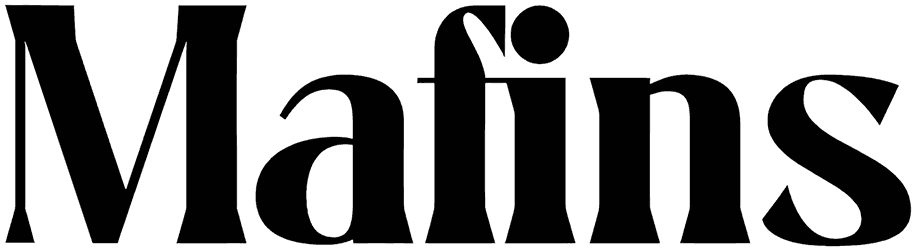
Mafins Font
Has it ever occurred to you that you can imply as much elegance as you want about a certain brand if you just choose the right font? For instance, with Mafins here, used as your business card font, you can get all the respect you want from your clients.
You should just find some other font for the numeric part of your contact info. Other than that, this serif font does wonders for your art magazines, fashion websites, and so on.